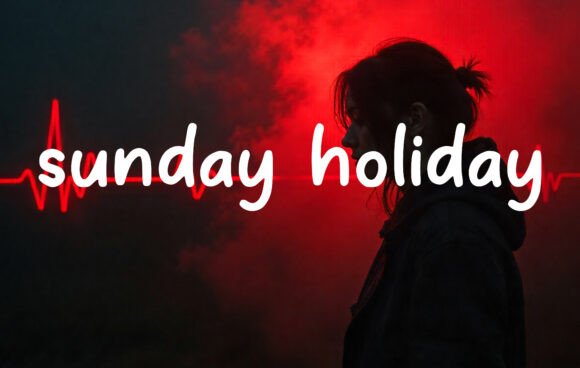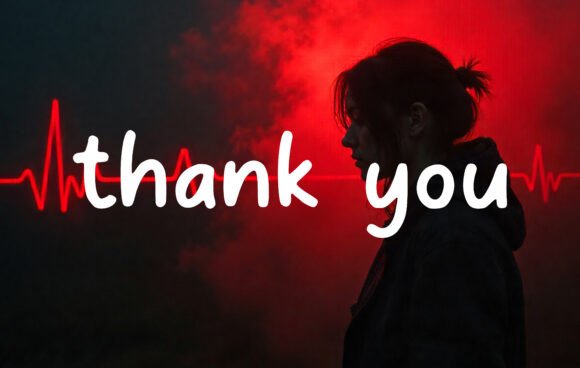
Inject Vibrant Energy into Your Work with the Heartbeat Font
Are you looking for a typeface that can add a burst of energy and joy to your designs? Look no further than the Heartbeat font, a thick and bubbly typeface that’s sure to capture attention and leave a lasting impression. With its soft, rounded strokes and youthful baseline, this font is perfect for designers who want to add a friendly, energetic personality to their work.
A Font that Mimics Hand-Drawn Lettering
The Heartbeat font features a unique design that’s inspired by the natural flow of hand-drawn lettering. Its soft, rounded strokes and subtle imperfections give it a playful, approachable feel that’s perfect for a wide range of design applications. Whether you’re creating social media graphics, apparel slogans, or childhood-oriented branding, this font is sure to bring a smile to your audience’s face.
Perfect for Vibrant Social Media Graphics
In today’s fast-paced digital landscape, it’s more important than ever to create social media graphics that stand out from the crowd. The Heartbeat font is the perfect choice for designers who want to add a burst of energy and personality to their graphics. Its bold, bouncy characters are sure to grab attention and engage your audience, making it perfect for use in social media posts, stories, and ads.
Fun and Engaging Apparel Slogans
The Heartbeat font is also a great choice for designers who want to create fun and engaging apparel slogans. Its thick, bubbly characters are perfect for use on t-shirts, mugs, stickers, and other physical merchandise. Whether you’re creating a slogan for a casual wear brand or a fun phrase for a birthday gift, this font is sure to add a playful touch to your design.
Childhood-Oriented Branding
For designers who specialize in childhood-oriented branding, the Heartbeat font is a dream come true. Its friendly, approachable personality is perfect for use in branding and marketing materials for kids’ products and services. Whether you’re creating a logo for a children’s clothing brand or a nursery wall art design, this font is sure to delight your audience.
High Legibility and Approachable Silhouette
One of the standout features of the Heartbeat font is its high legibility and approachable silhouette. Its bold, bouncy characters are easy to read, even at small sizes, making it perfect for use in a wide range of design applications. Whether you’re creating a fun header for an educational app or a birthday invitation, this font is sure to communicate your message clearly and effectively.
Practical Applications for Designers and Crafters
So, what can you use the Heartbeat font for? The possibilities are endless! Here are a few ideas to get you started:
- Birthday invitations and party decorations
- Nursery wall art and children’s book illustrations
- Fun headers for educational apps and websites
- Social media graphics and ads
- Apparel slogans and merchandise
- Stickers, mugs, and other physical products
Adding a Creative, Professional Touch to Your Designs
The Heartbeat font is more than just a fun, playful typeface – it’s also a professional design tool that can add a creative touch to your work. Its bold, bouncy characters are sure to engage your audience and communicate your message clearly and effectively. Whether you’re a designer, crafter, or DIY enthusiast, this font is a great addition to your toolkit.
In conclusion, the Heartbeat font is a vibrant and energetic typeface that’s perfect for designers who want to add a burst of personality to their work. With its soft, rounded strokes and youthful baseline, this font is sure to capture attention and leave a lasting impression. Whether you’re creating social media graphics, apparel slogans, or childhood-oriented branding, the Heartbeat font is a great choice for adding a friendly, energetic personality to your designs.